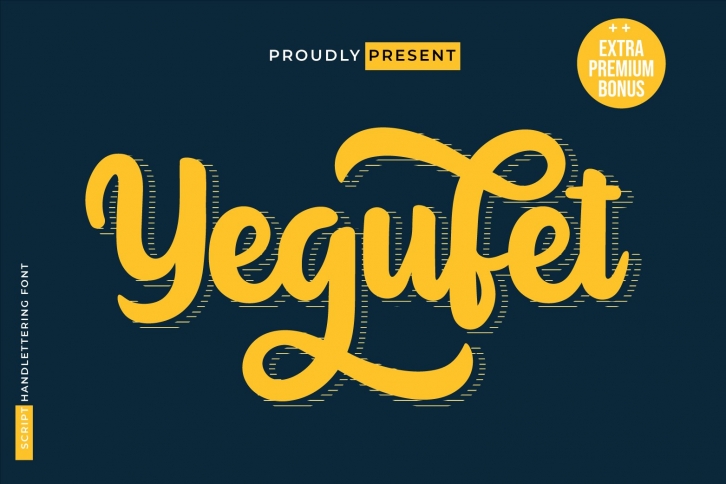
Yegufet is a beautiful font that was designed by twinlettertype. It's a great choice for designers and creatives who need such a font. It was released on October 12, 2020 and the file size is 17.36 MB. Yegufet may give a more youthful, expressive and casual look to your project. It is a very beautiful, refined, elegant, and high-quality font.